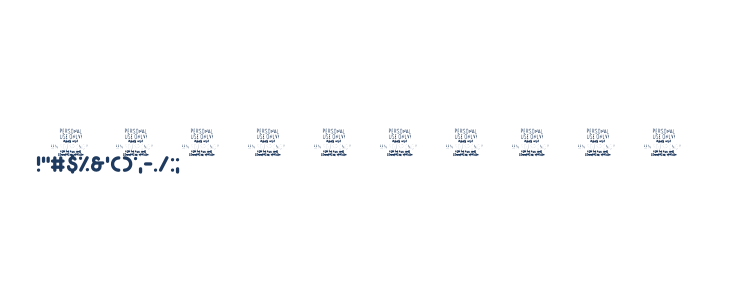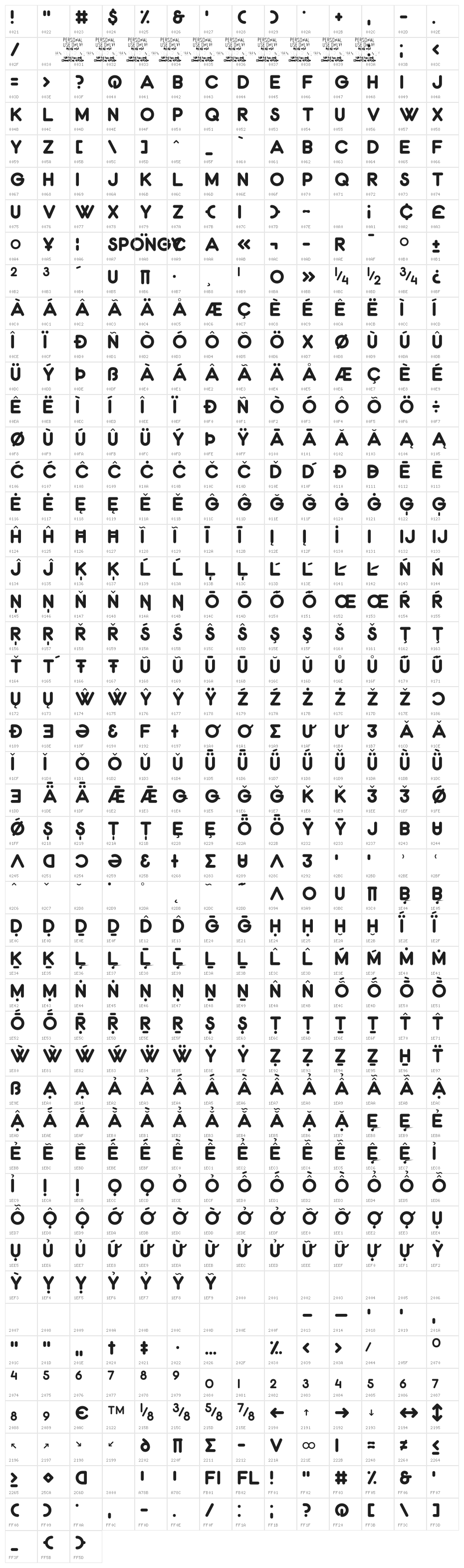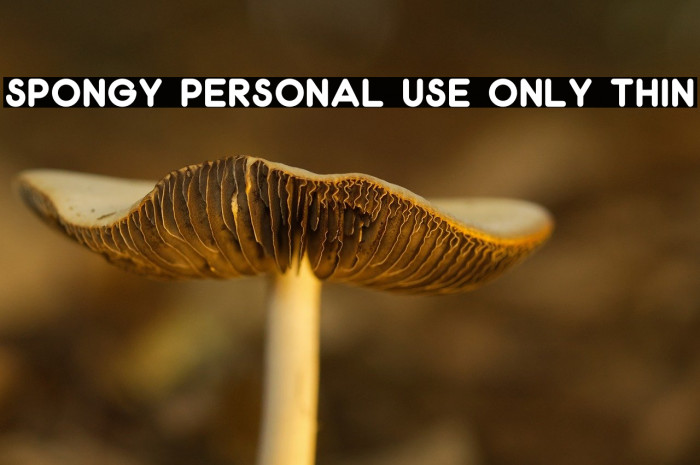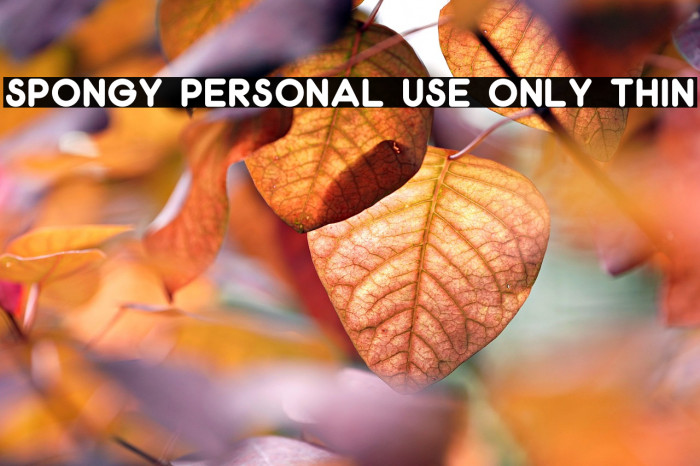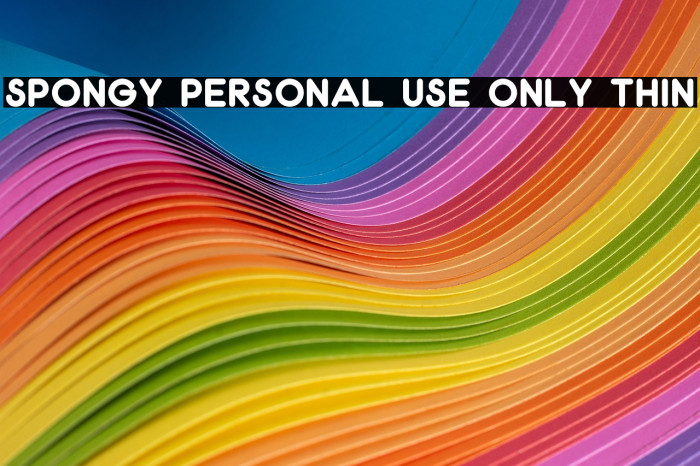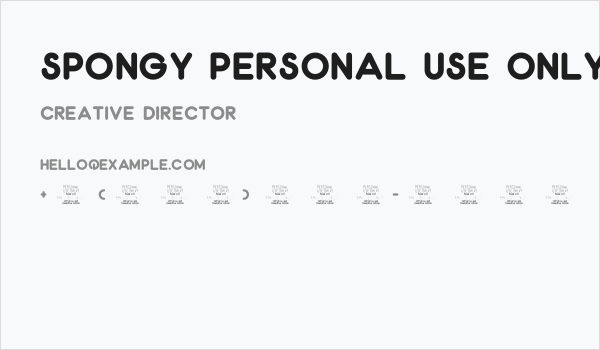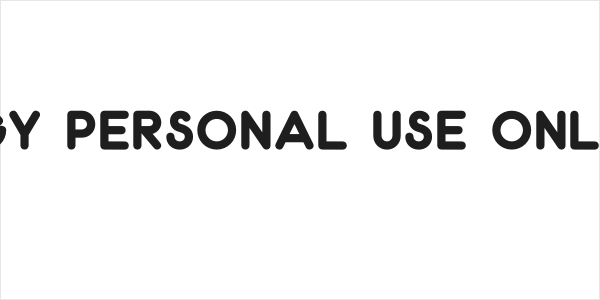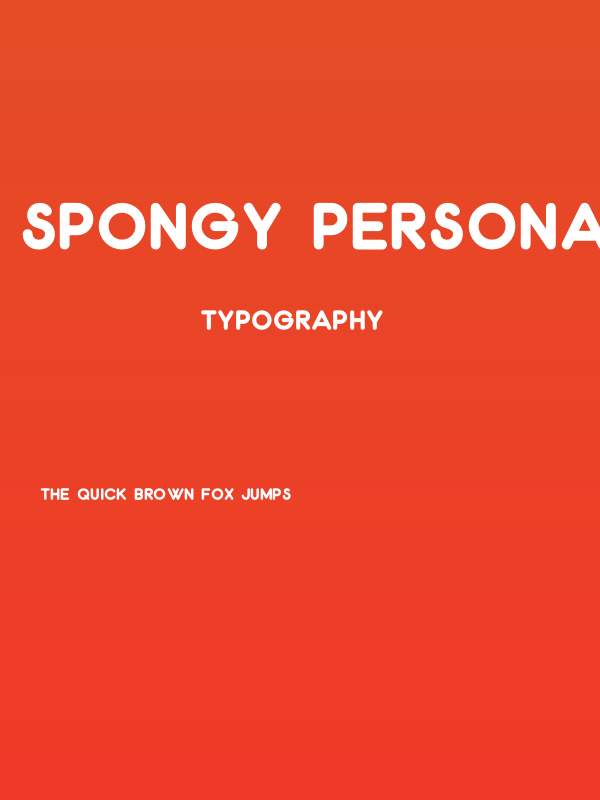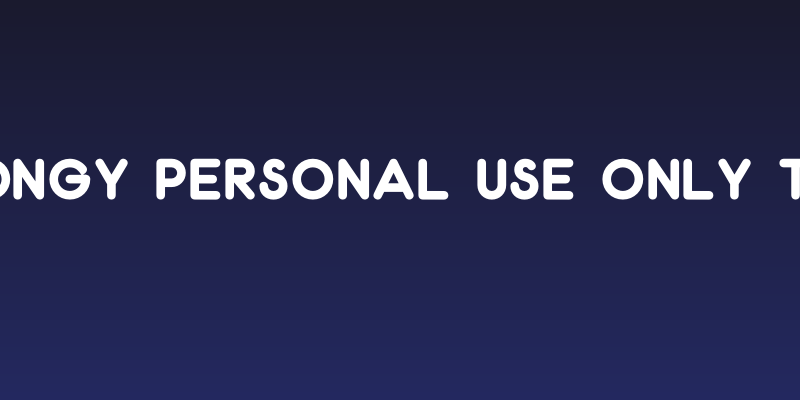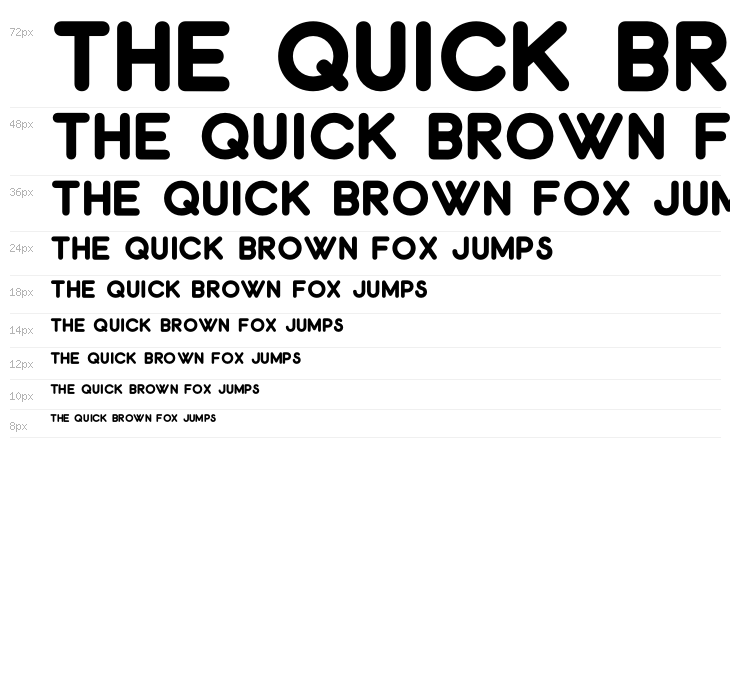
Spongy PERSONAL USE ONLY Thin Font
Spongy PERSONAL USE ONLY Thin Description
This font features a playful and rounded design, characterized by its thick, uniform strokes and smooth curves. The letters are bold and have a consistent weight throughout, giving them a strong presence on the page. The rounded edges and lack of sharp angles contribute to a friendly and approachable aesthetic. This style is particularly effective for creating a modern and casual look, making it suitable for a variety of creative projects. The font maintains a consistent width across all characters, ensuring a balanced and harmonious appearance. Its unique style makes it stand out, while still being highly legible.
| Proposed Projects | Ideal for children's books, playful branding, casual invitations, and creative posters. |